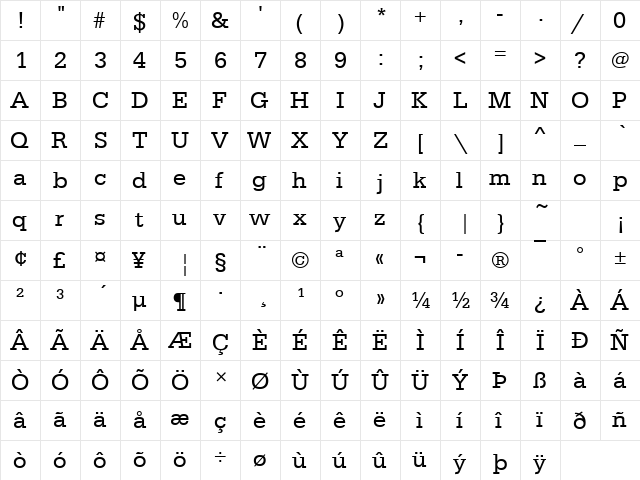
URWSarandibT Regular
Design Context for URWSarandibT Typeface
URWSarandibT takes a measured approach to typography — its balanced proportions and neutral character make it a reliable workhorse for both digital and print work.